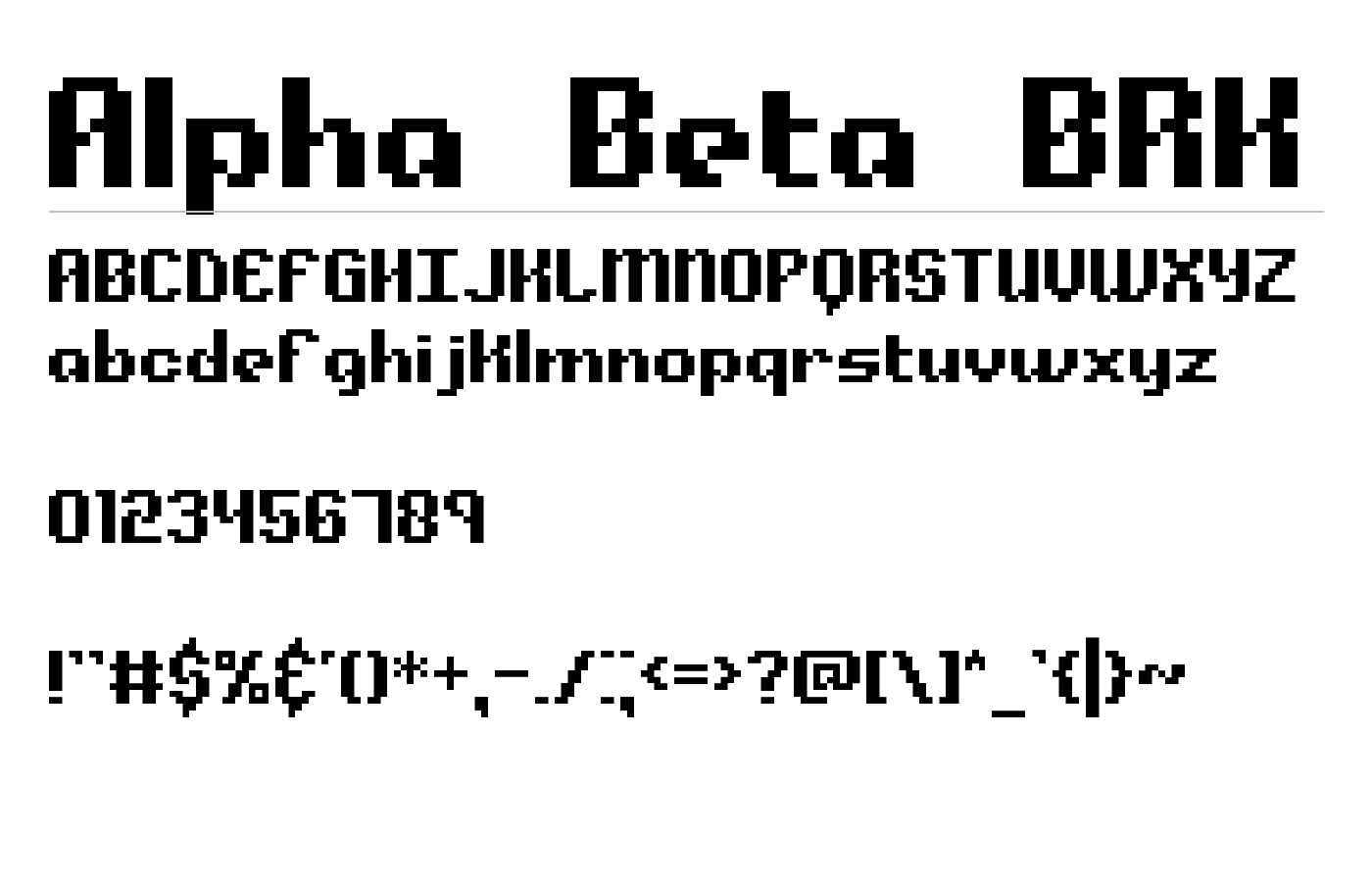
Alpha Beta BRK is a pixelated sans serif font that evokes a retro digital or arcade game aesthetic with its sharp, blocky characters and uniform stroke weight. It has a condensed width and moderate x-height, with monospaced-like spacing that enhances its nostalgic, tech-inspired appeal. This font is ideal for projects needing a vintage computer vibe, such as video game branding, digital art, or playful tech-themed designs.
Alpha Beta BRK Font
About Alpha Beta BRK Font